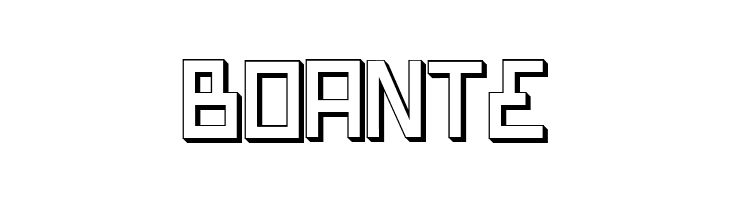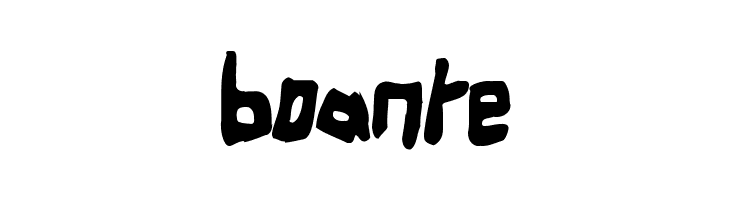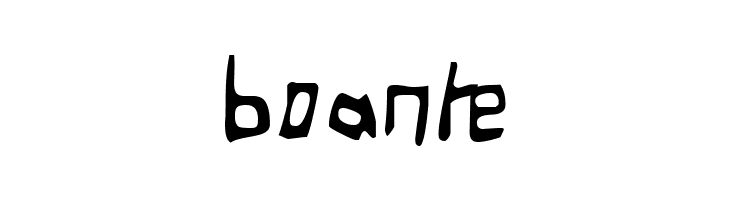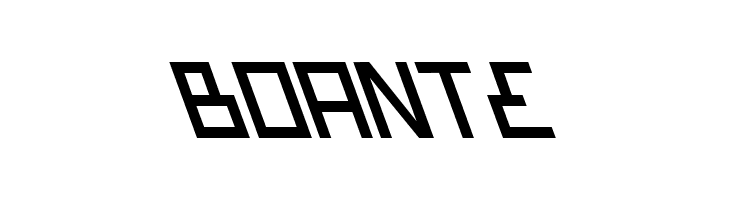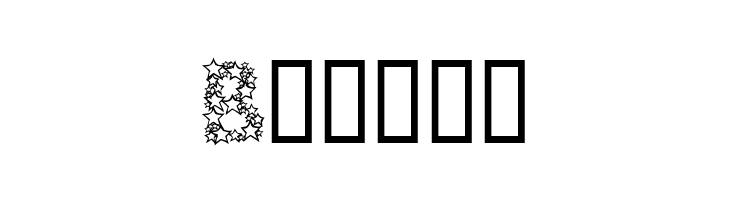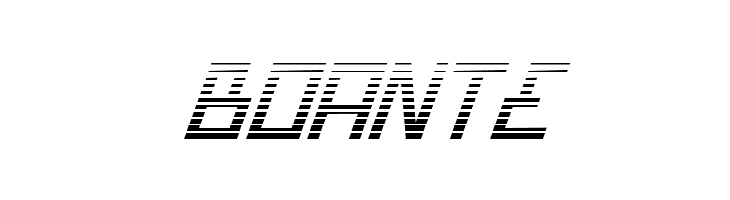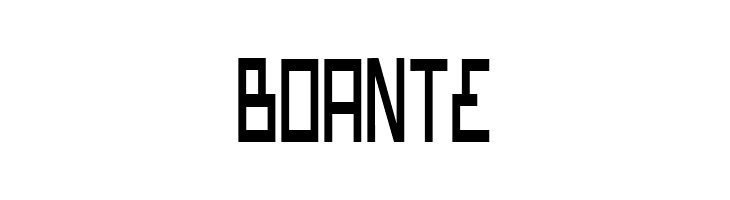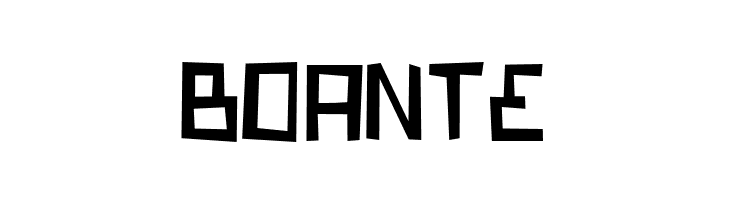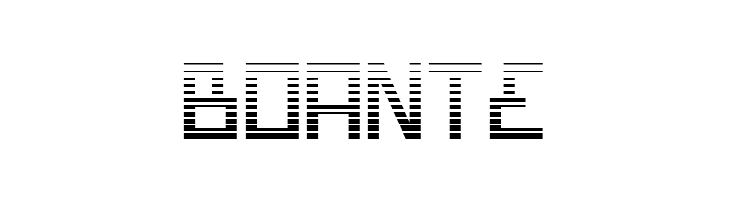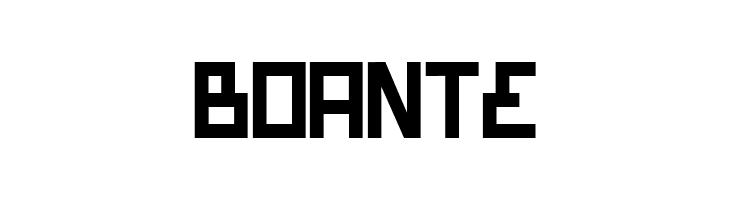
• Bill Hicks 5
A bold, distressed blackletter font with a gothic, vintage aesthetic.
• BilligHora
A bold, fragmented, and pixelated decorative font with high contrast.
• billy
A playful, rounded, and informal font with a handwritten feel.
• Bim
A bold, geometric font with a futuristic outline style.
• Bim eroded
A bold, industrial font with a distressed, eroded effect for a rugged look.
• Binary Soldiers
A pixelated, retro video game-inspired font with a decorative, nostalgic style.
• Binary SoldiersII
A pixelated, soldier-themed font with a retro gaming aesthetic.
• Binary SoldiersIII
A pixelated, retro video game-inspired font with a blocky, digital aesthetic.
• Bingo Player JL
A bold, sans-serif font with characters enclosed in circles, ideal for high visibility.
• Bingo Star
A decorative font made entirely of star shapes, perfect for festive and playful designs.
• BIO_HAND_CRE
A playful, handwritten font with tall, narrow letters and rounded edges.
• Biometric Joe
• Bionic Kid Simple
A bold, geometric font with a futuristic, stencil-like design.
• Bionic Kid Simple Slanted
A bold, slanted, and futuristic font with angular, geometric shapes.
• Bionic Kid Slanted 3d
A bold, 3D slanted font with a futuristic and playful design.
• Bionic Type
A futuristic, geometric font with angular, blocky letterforms.
• Bionic Type Bold
A bold, geometric font with a futuristic and digital aesthetic.
• Bionic Type Cond Italic
A futuristic, angular, and italicized font with a condensed style.
• Bionic Type Condensed
A futuristic, geometric font with a condensed and angular design.
• Bionic Type Expanded
A futuristic, geometric font with sharp angles and a bold, expanded style.
• Bionic Type Expanded Bold
A bold, expanded font with a futuristic, geometric design.